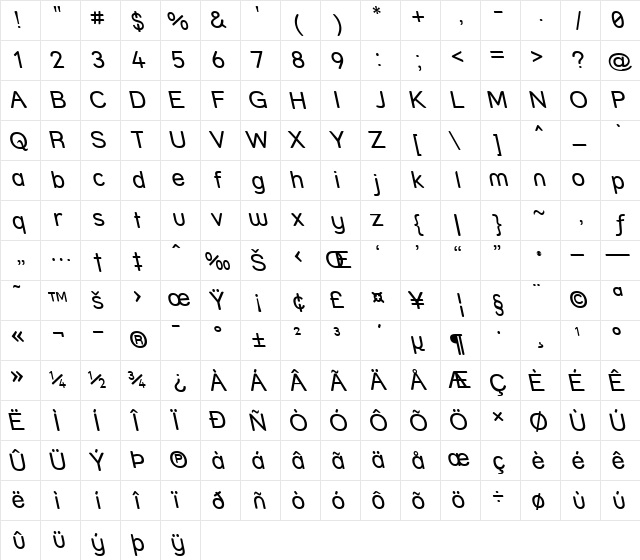
Street - Reverse Italic
| Designer | Graham Meade |
Design Context for Street - Reverse Typeface
Street - Reverse offers clean, dependable letterforms without strong stylistic allegiance, making it a practical choice for designers who need flexibility. The slanted form adds forward momentum and visual energy.
Pro Tip: Try Street - Reverse for annotation and caption copy alongside an upright companion — the contrast in angle creates a dynamic but ordered typographic system.